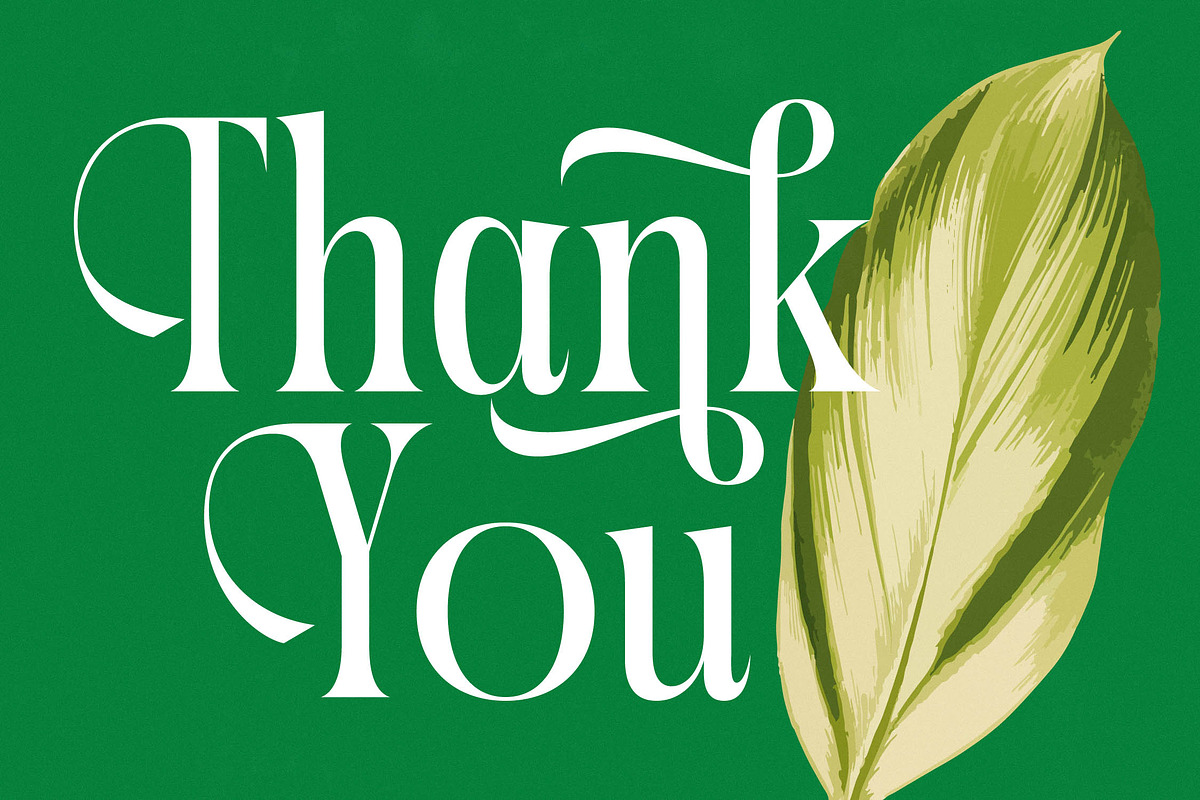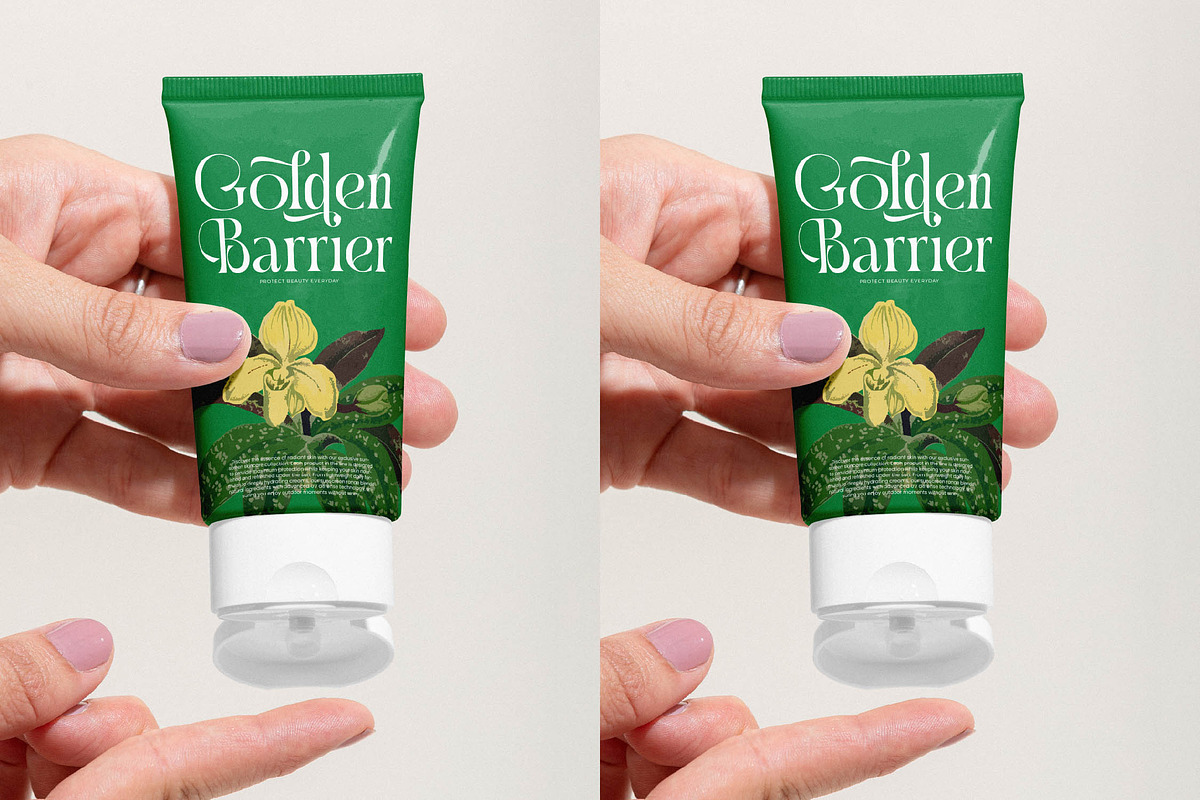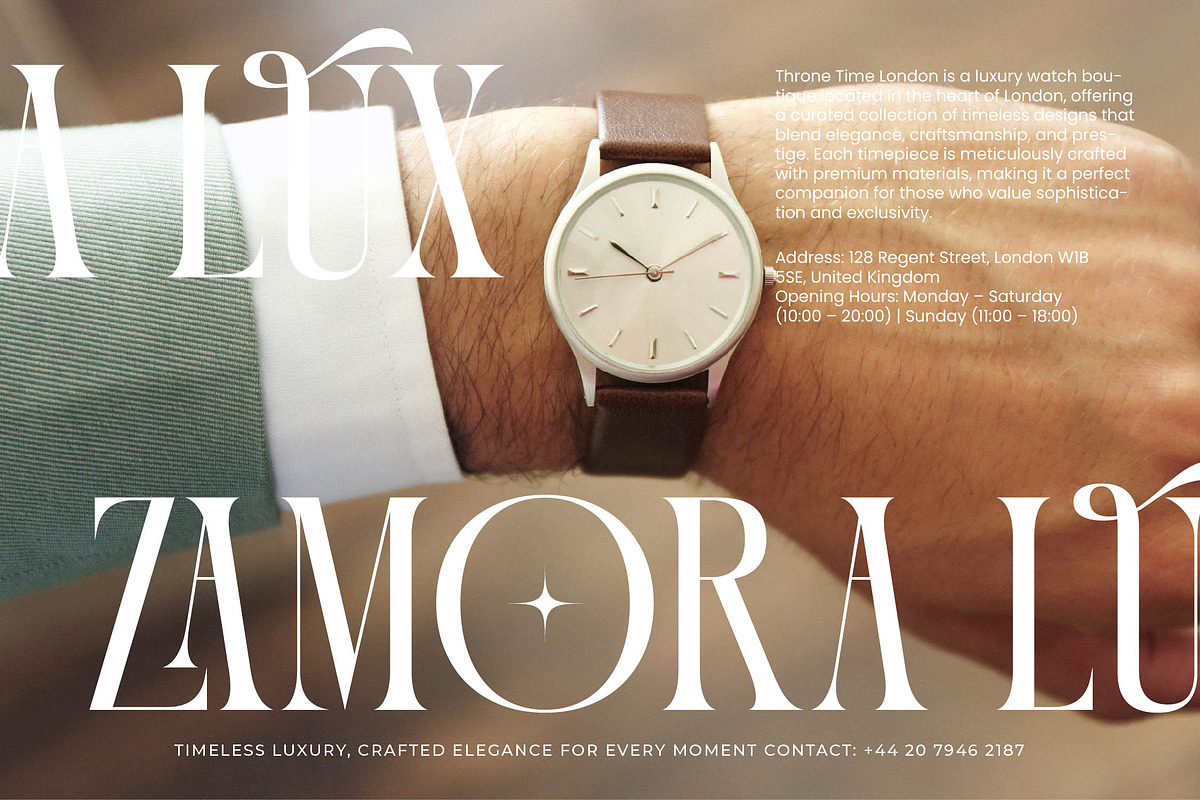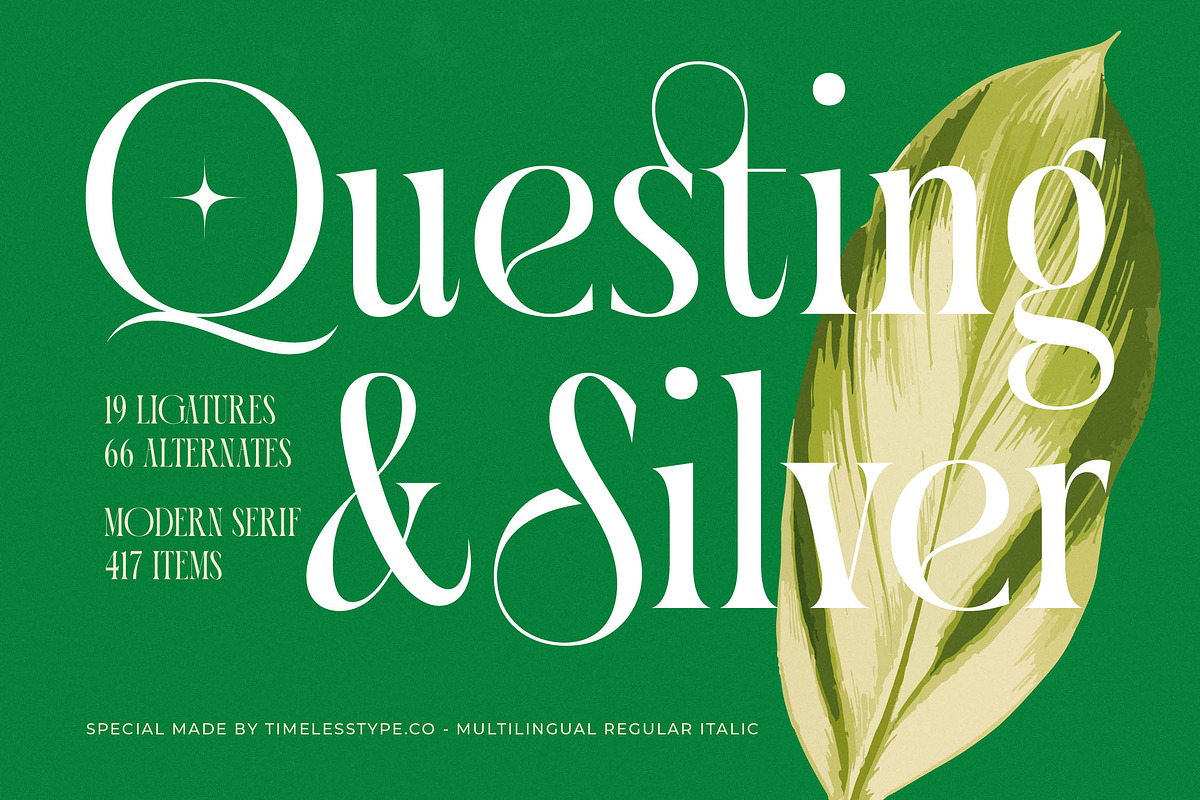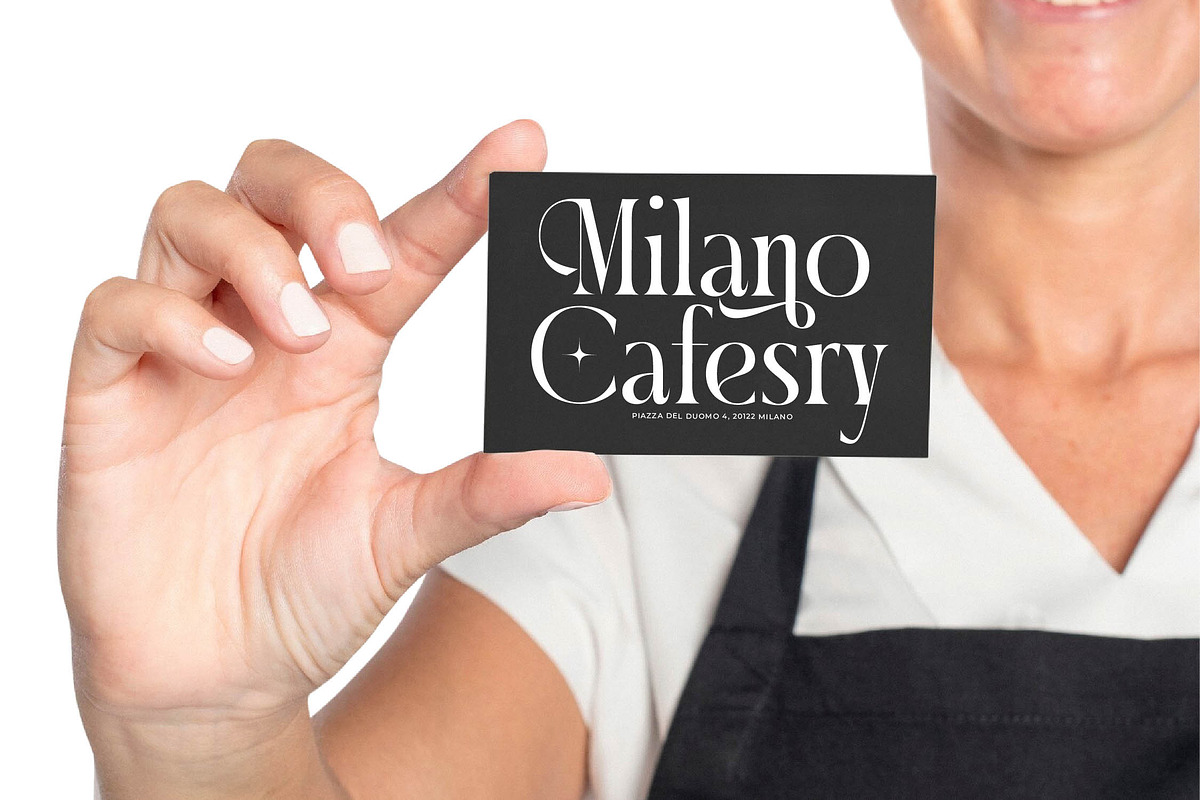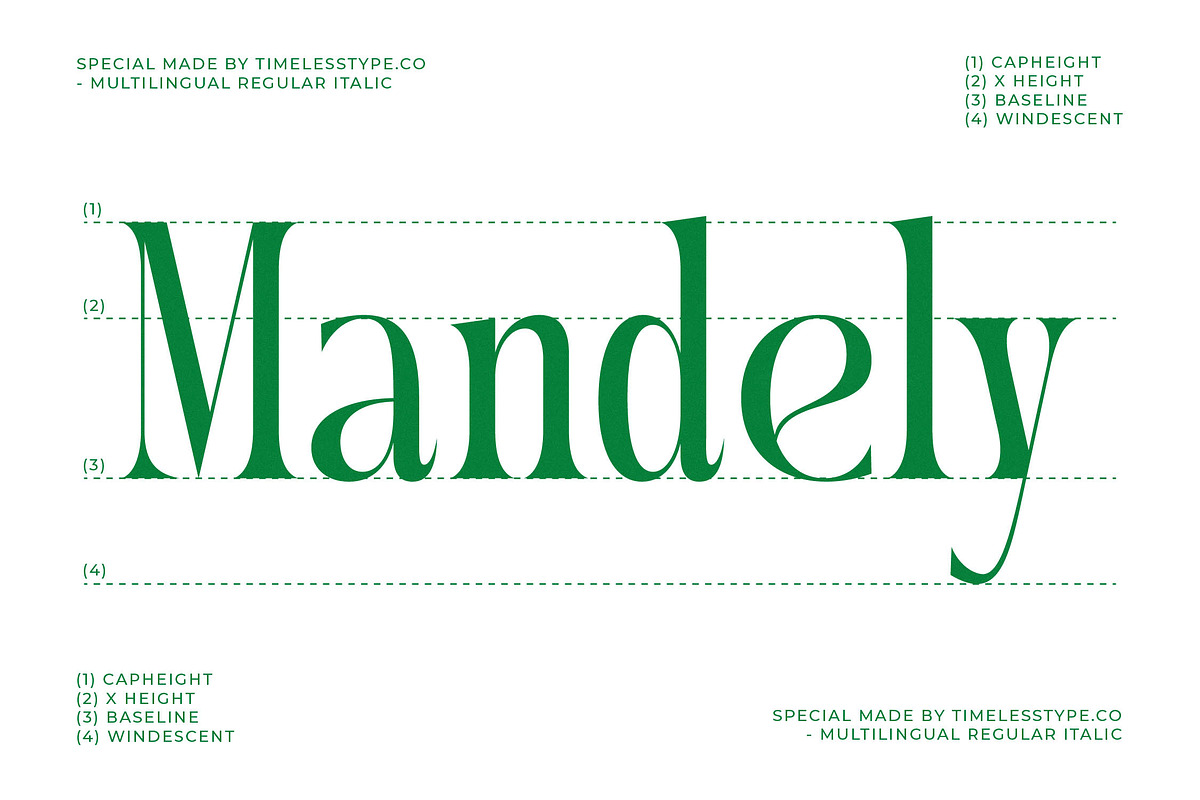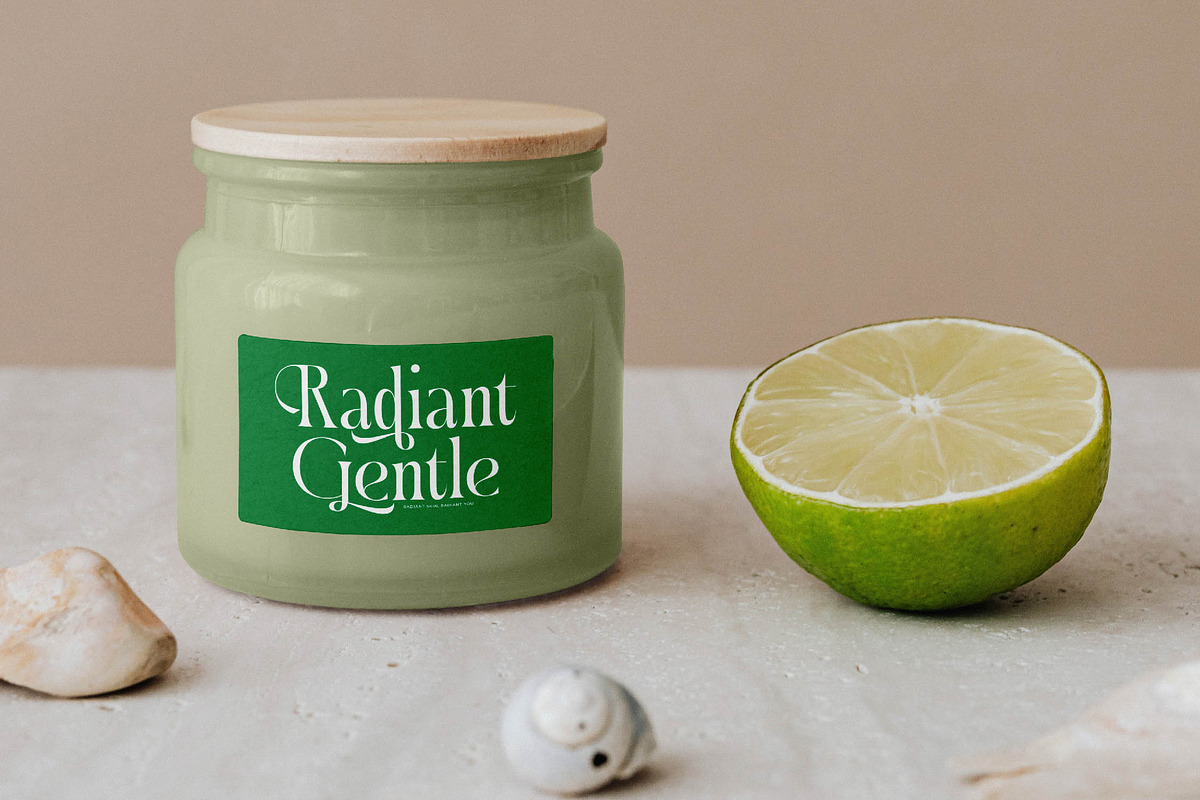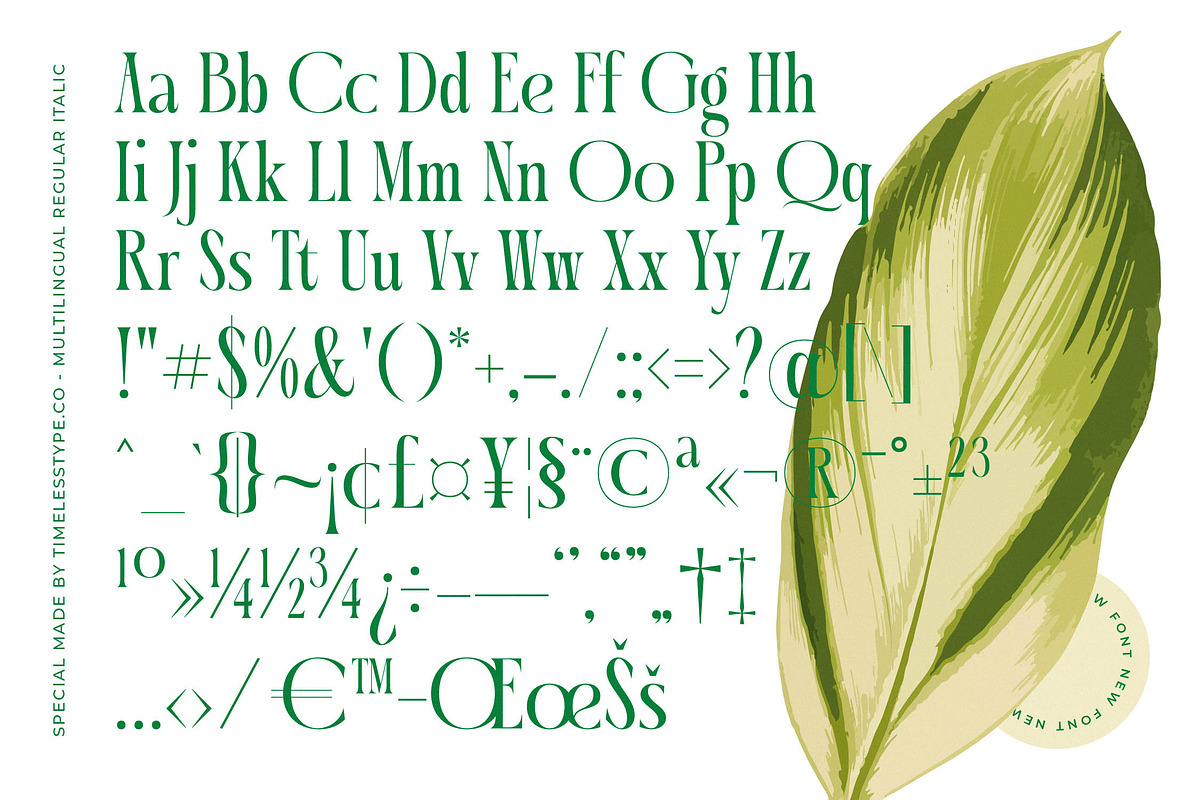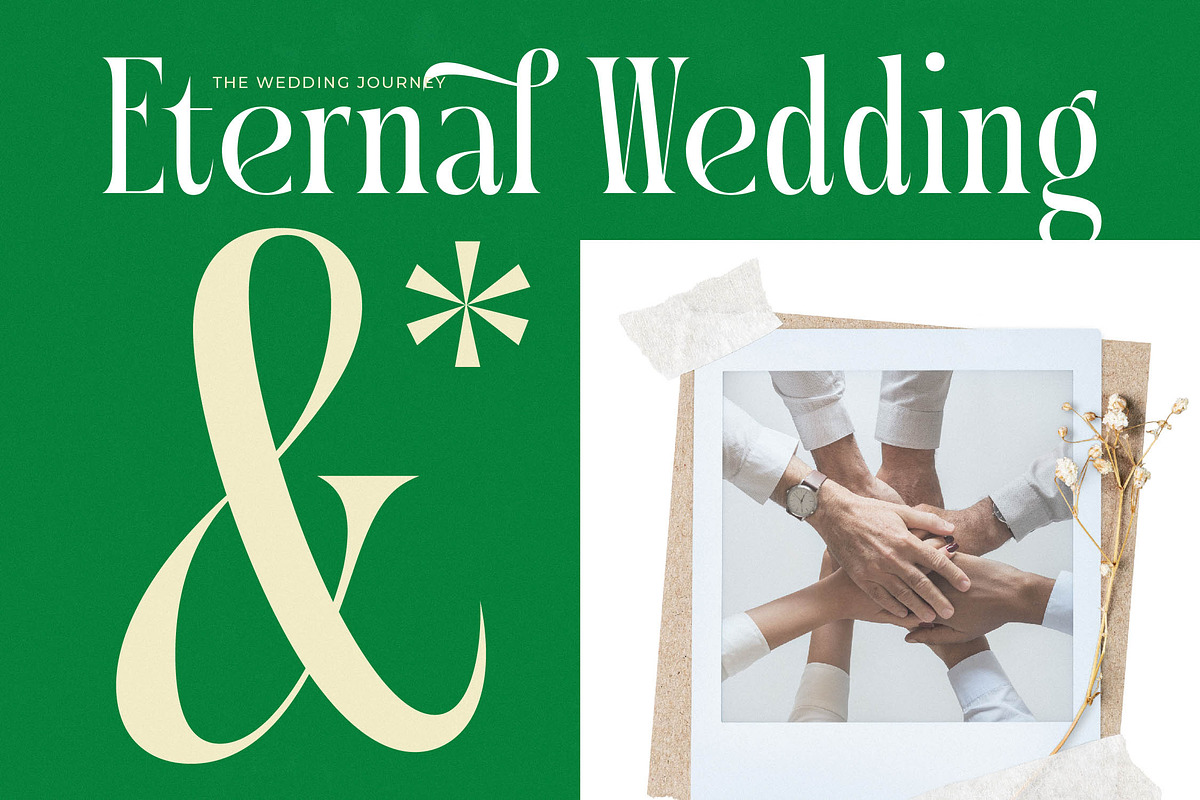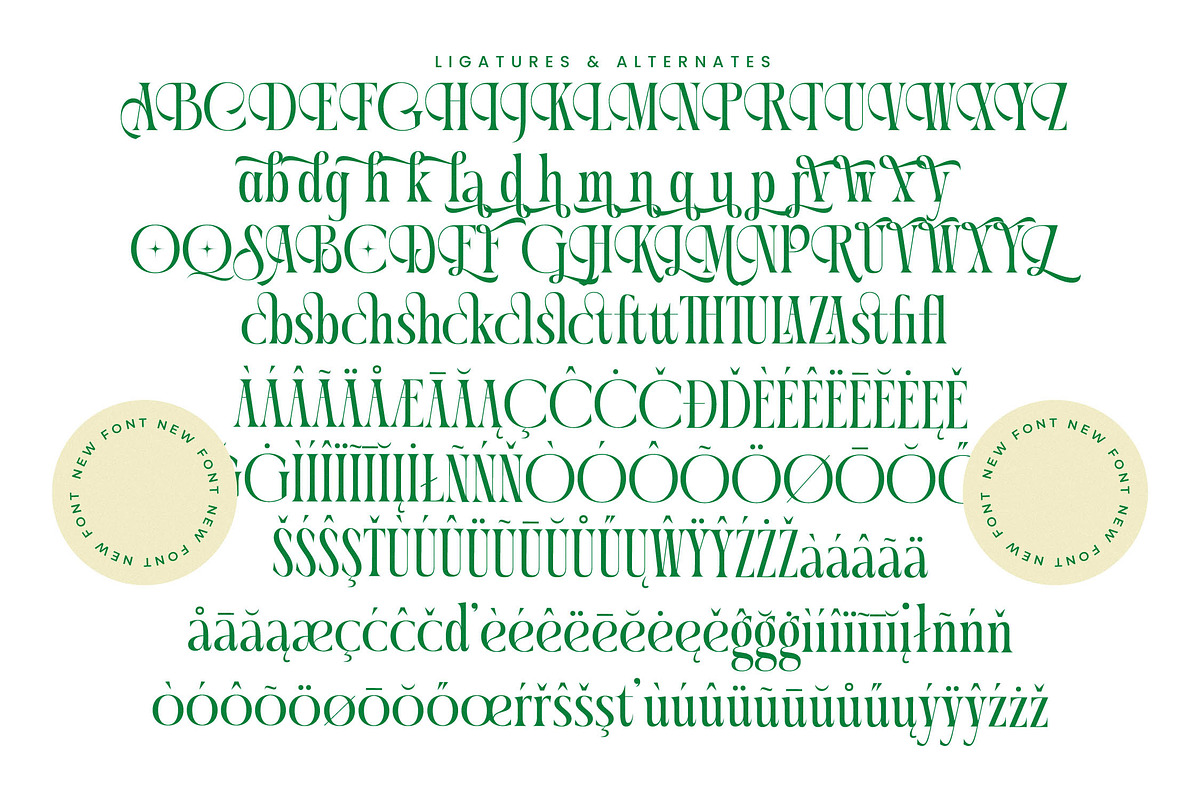
Questing Silver Modern Serif
Experience the breath of nature and high-end sophistication with Questing Silver, a font designed to redefine elegance in the digital age. This typeface balances organic curves with sharp precision to create a visual language that speaks of timeless luxury.
Drawing inspiration from the intricate patterns found in lush botanical gardens and the fluid lines of classic calligraphy, this font captures a unique intersection of natural beauty and structured design. It evokes an atmosphere of a high-end conservatory where every detail is curated for maximum aesthetic impact.
As a premier modern serif display, this typeface commands attention through its striking high-contrast serif strokes and artistic flares. It is the quintessential luxury typography solution for creators seeking an editorial font that delivers a lasting branding impact across every digital and print medium.
Perfectly aligned with the current modern serif trend, this typeface meets the growing demand for editorial display fonts that offer more than just legibility. Its character-driven typography allows designers to tap into a nostalgic yet forward-thinking aesthetic that is dominating high-end marketing today.
Whether you are crafting a unique logo design or establishing a cohesive visual identity for branding, this font excels in diverse environments. It is a versatile choice for high-fashion editorial spreads, premium product packaging, sophisticated wedding stationery, and the ever-evolving world of fashion retail.
This comprehensive package includes a wealth of OpenType features such as elegant ligatures and creative alternates that allow for custom compositions. With decorative swashes and full multilingual support for international characters, it provides global accessibility for any professional design project.
- Ligature 19 Alternate 66